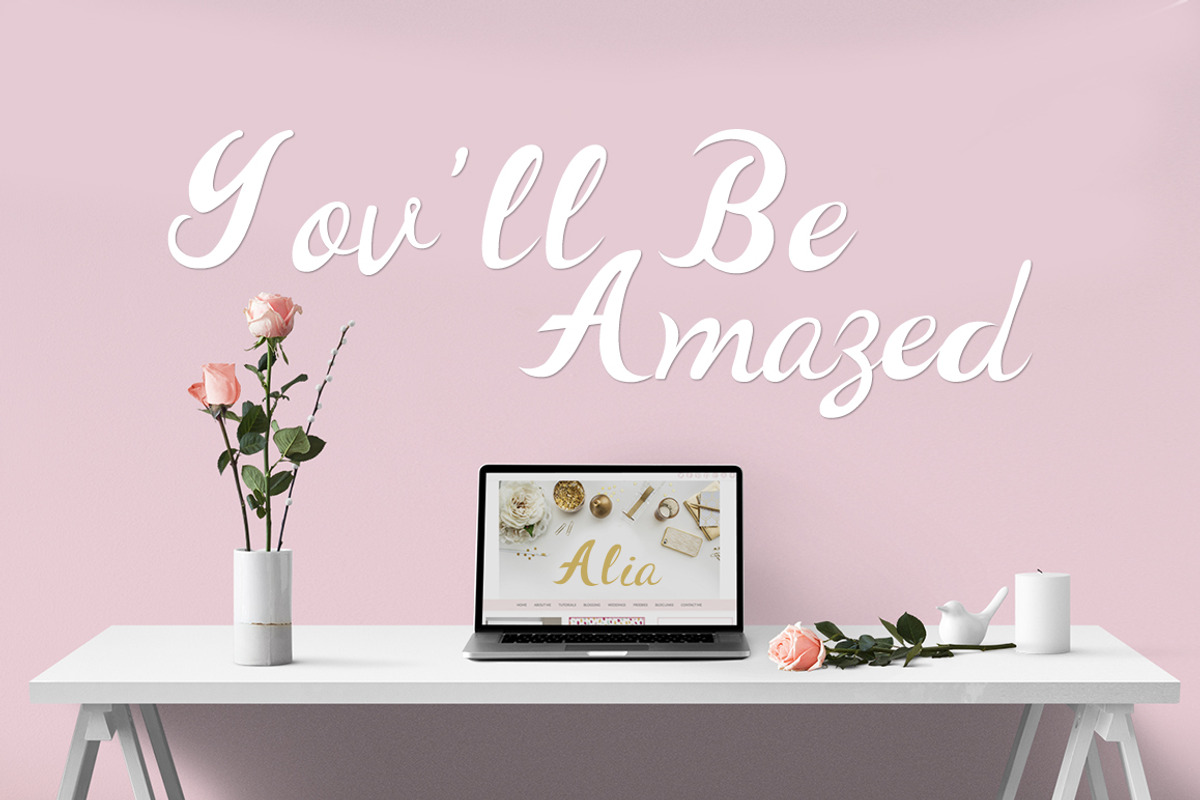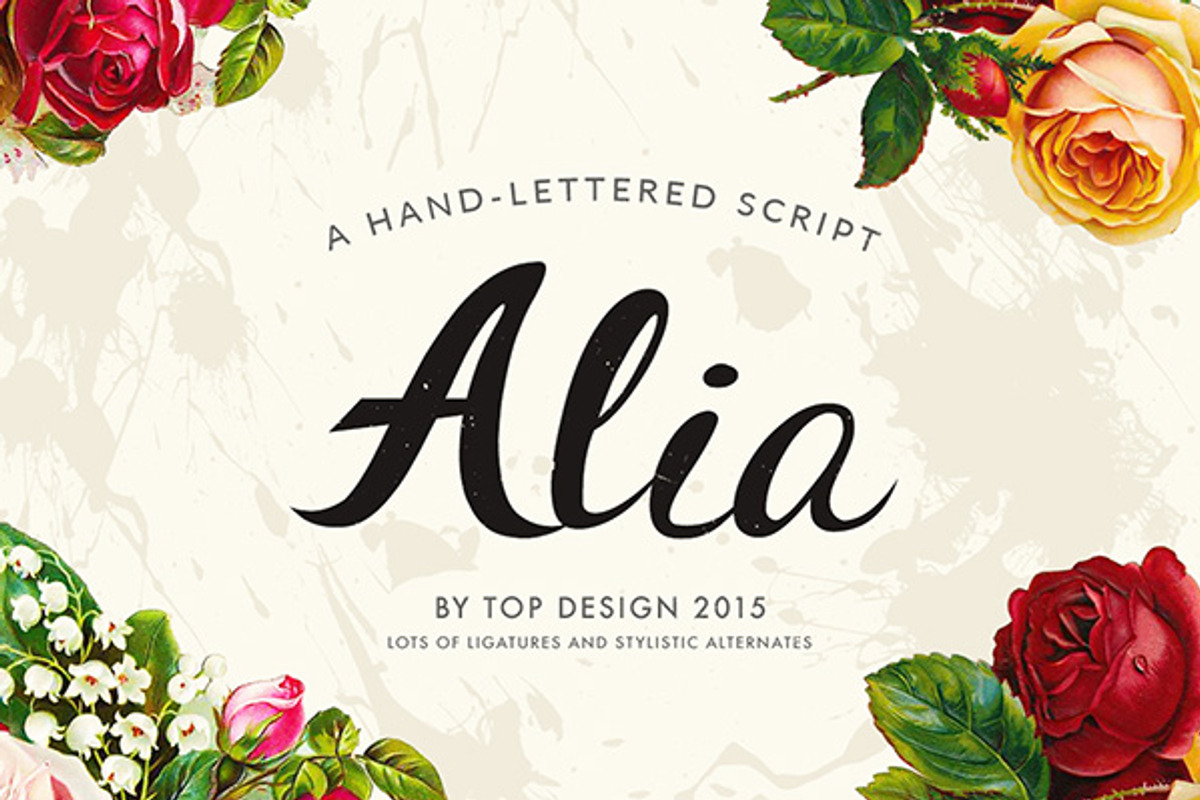
Alia - Hand lettered font -
Alia It is a heavy formal script similar in form to Commercial Script. t’s modern, bold, and lively, but not too whimsical. Features plenty of ligatures and stylistic alternates for a realistic, hand-lettered look.
Uppercase letters can be used alone as a cohesive group, or they can be paired with their lowercase cousins, for lettering that dances effortlessly across your design.